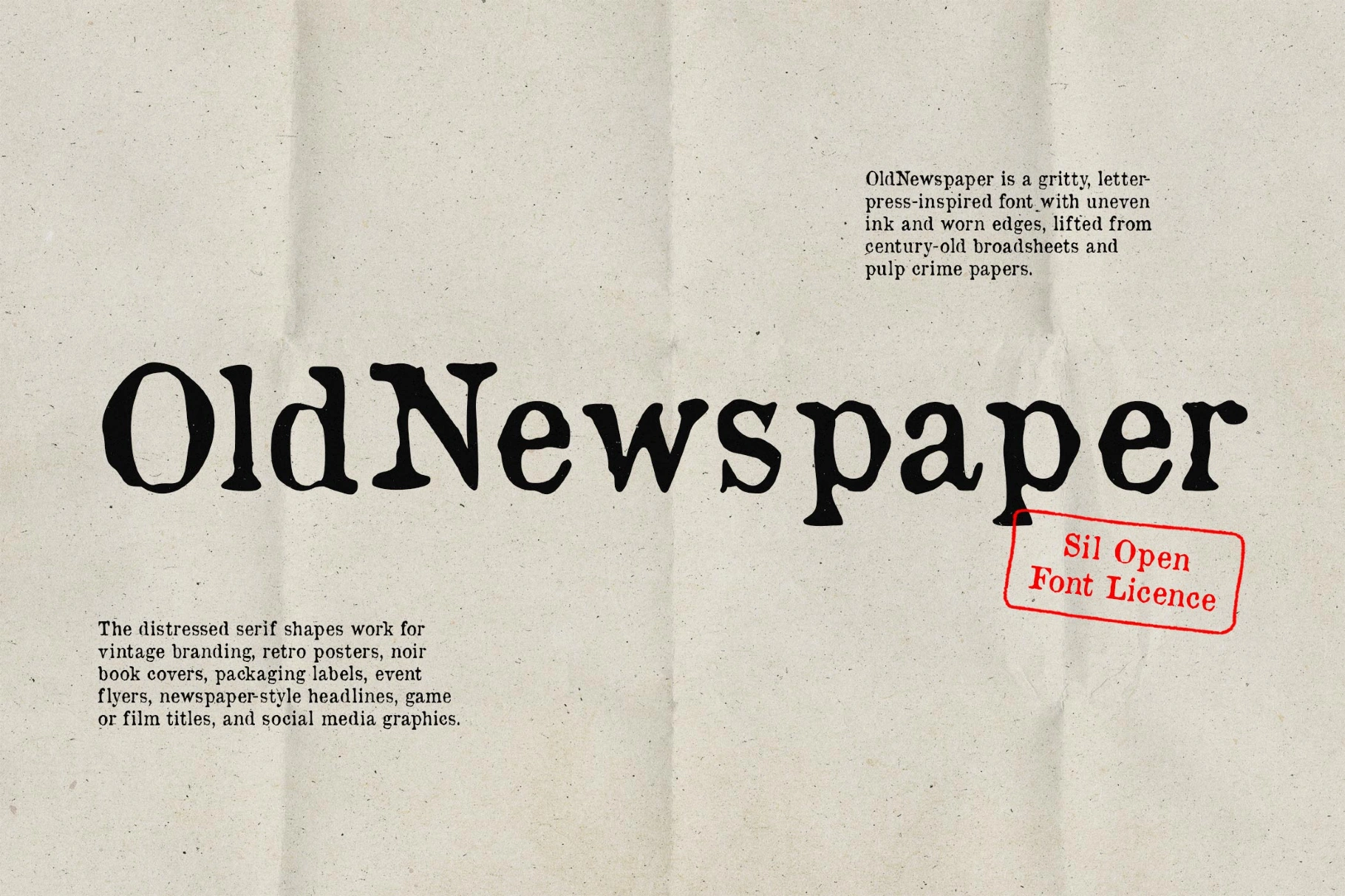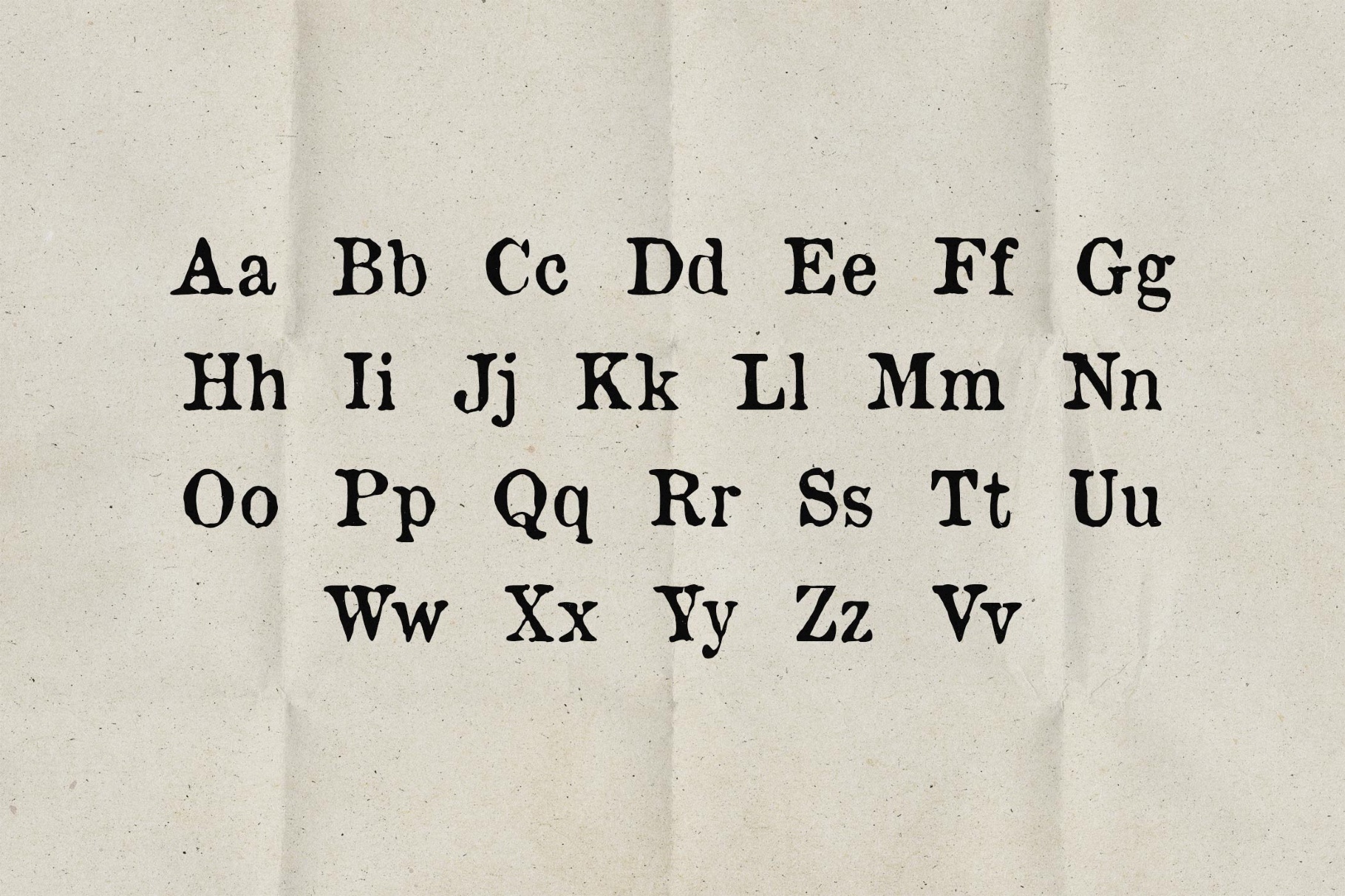
OldNewspaper Typewriter Font
OldNewspaper is a gritty, letterpress-inspired font with uneven ink and worn edges, lifted from century-old broadsheets and pulp crime papers. The distressed serif shapes work for vintage branding, retro posters, noir book covers, packaging labels, event flyers, newspaper-style headlines, game or film titles, and social media graphics.